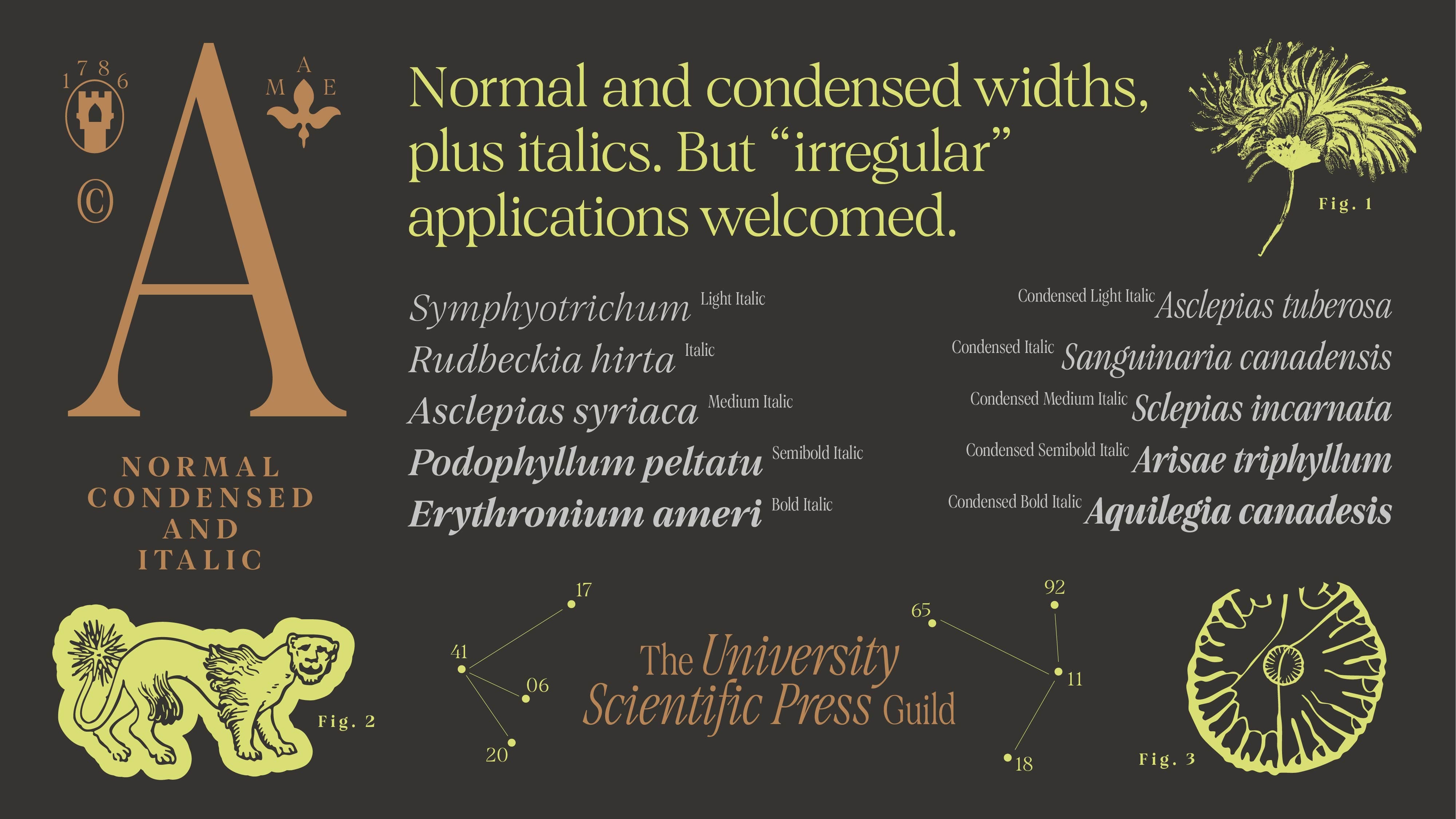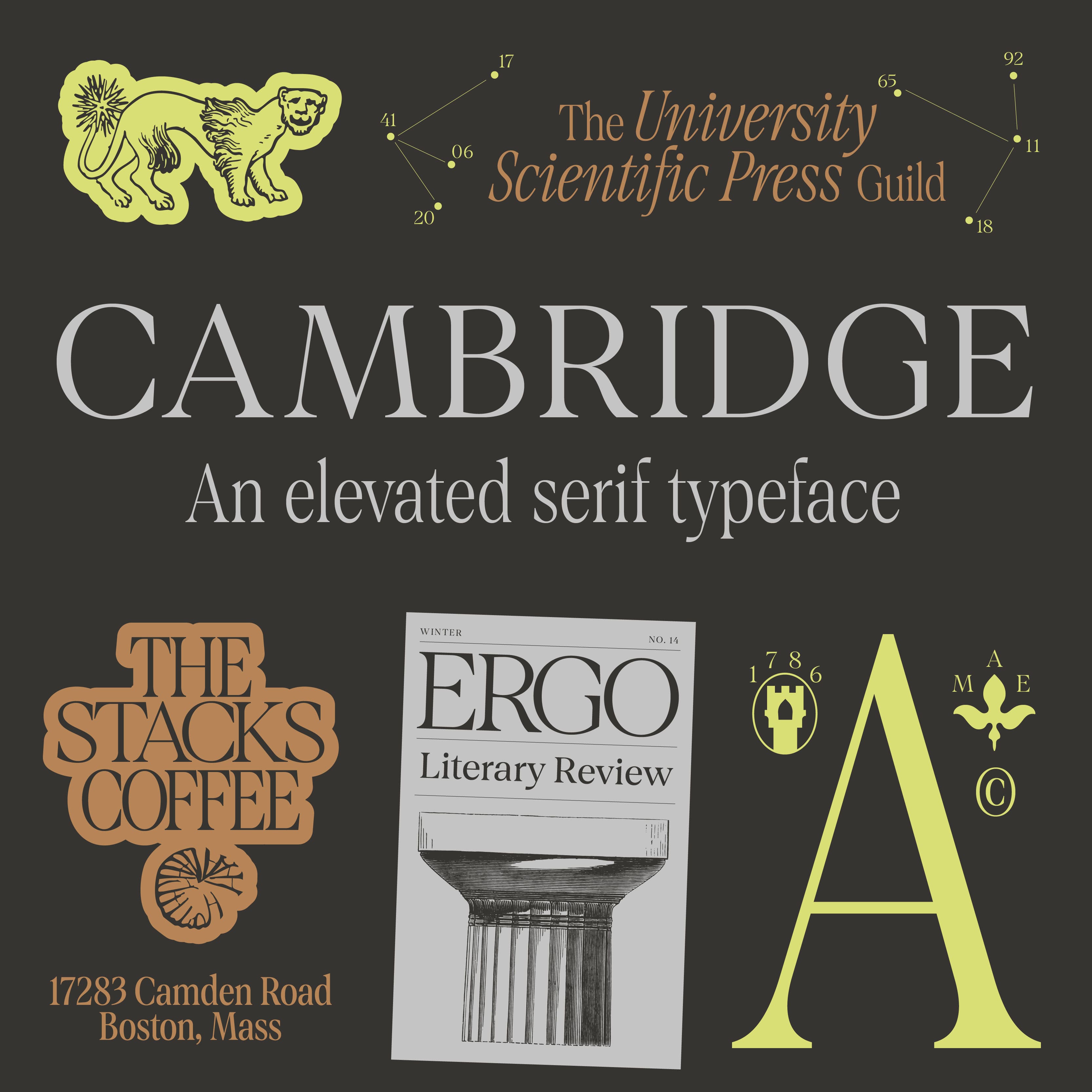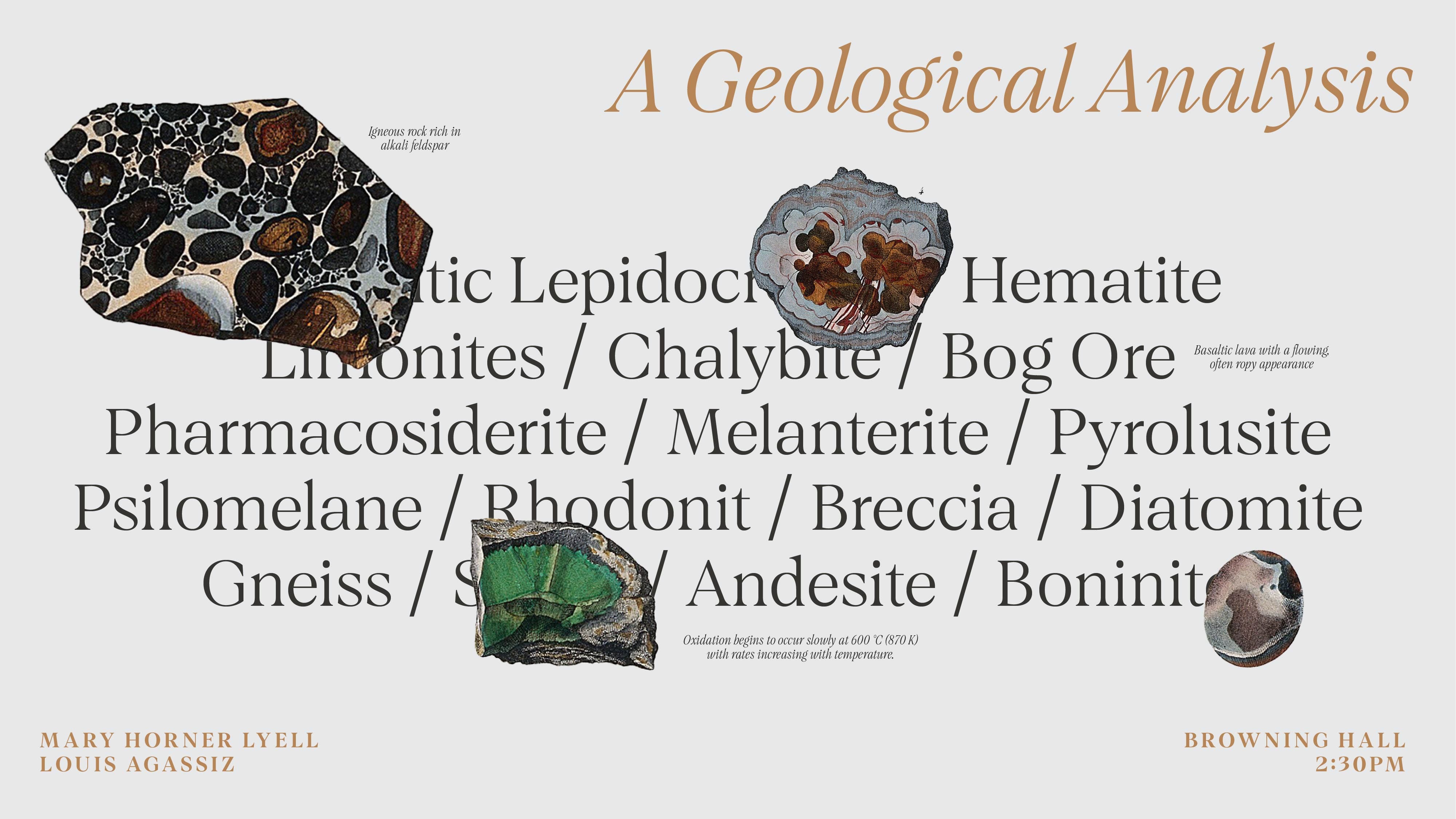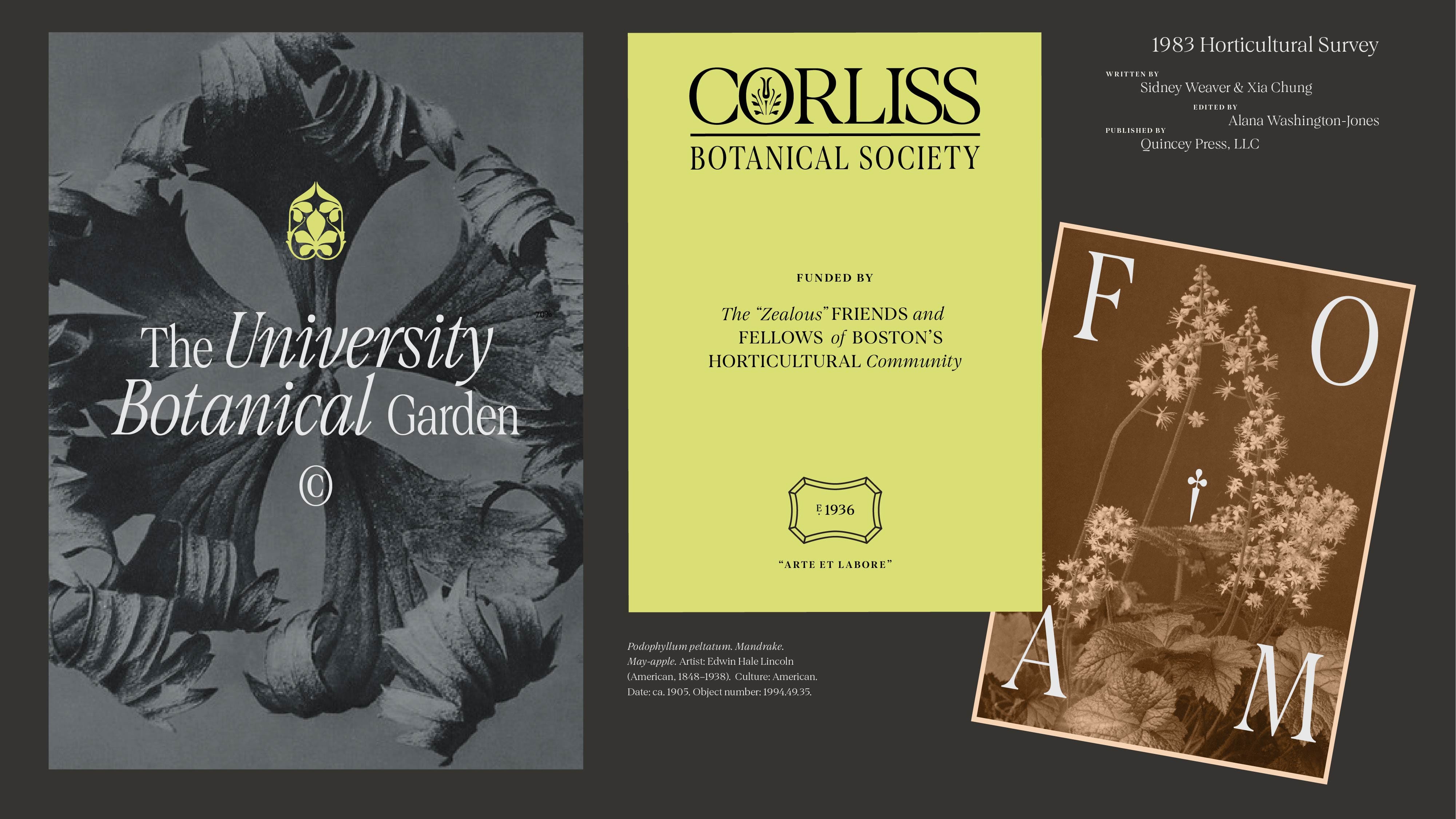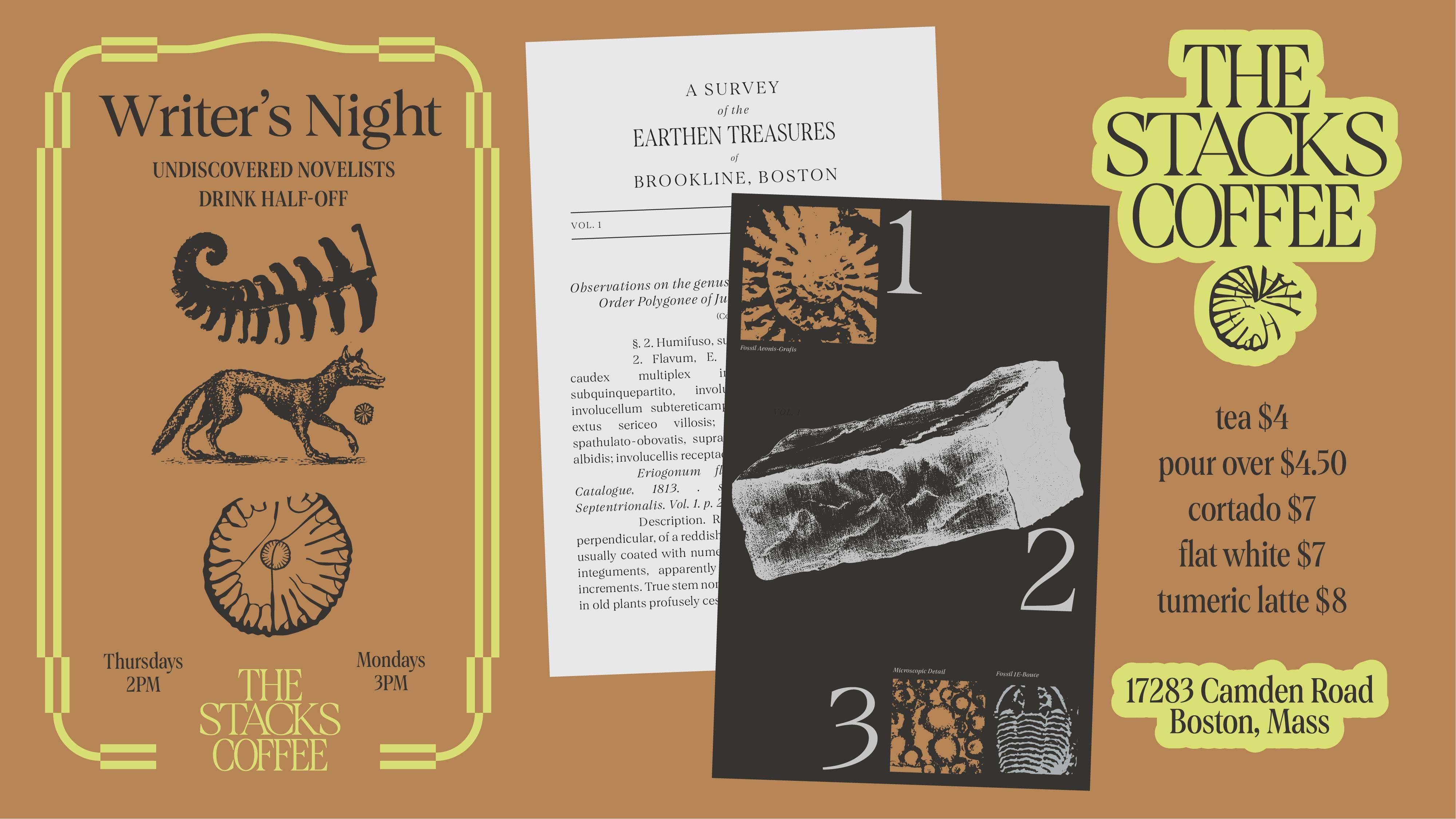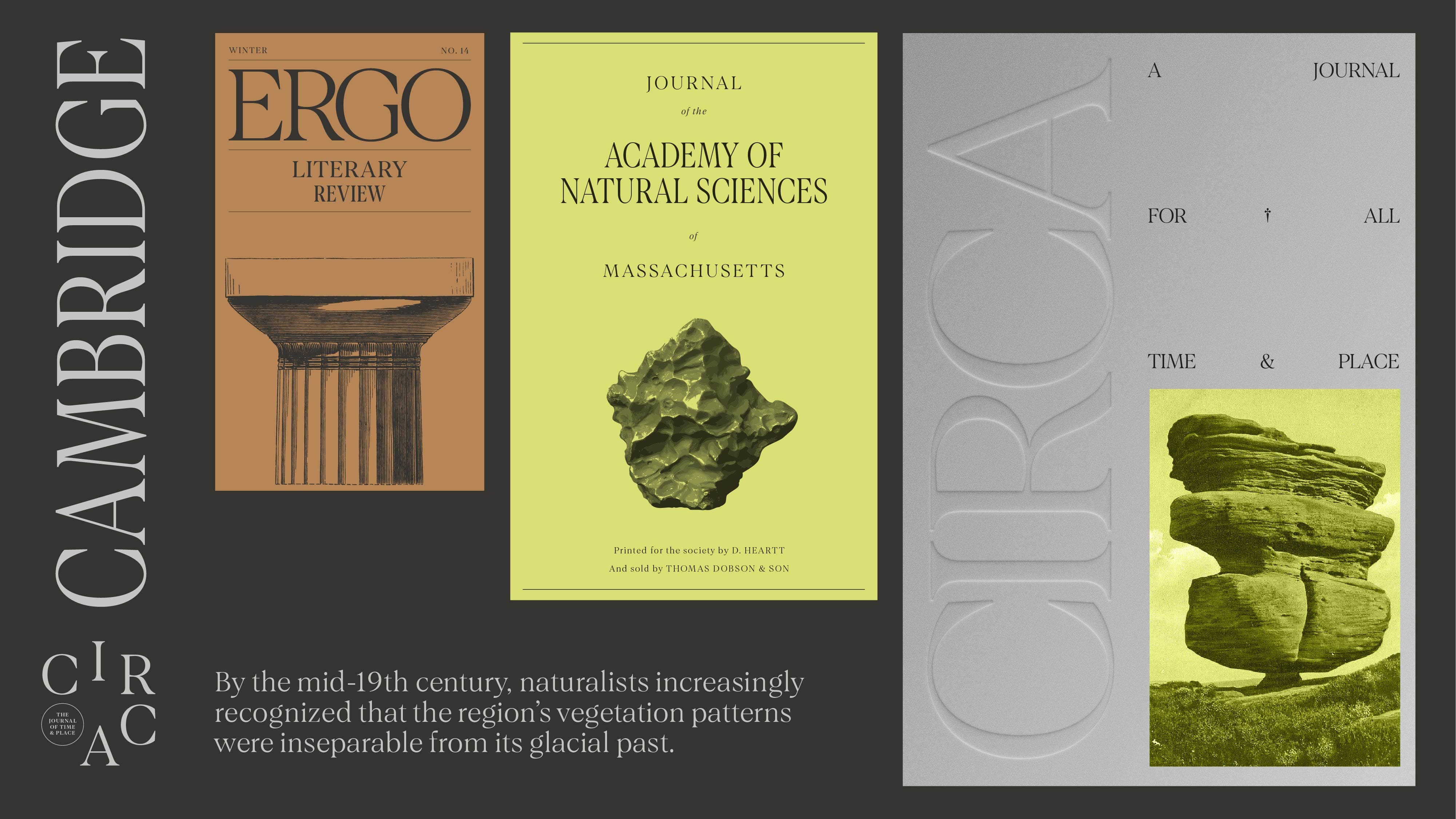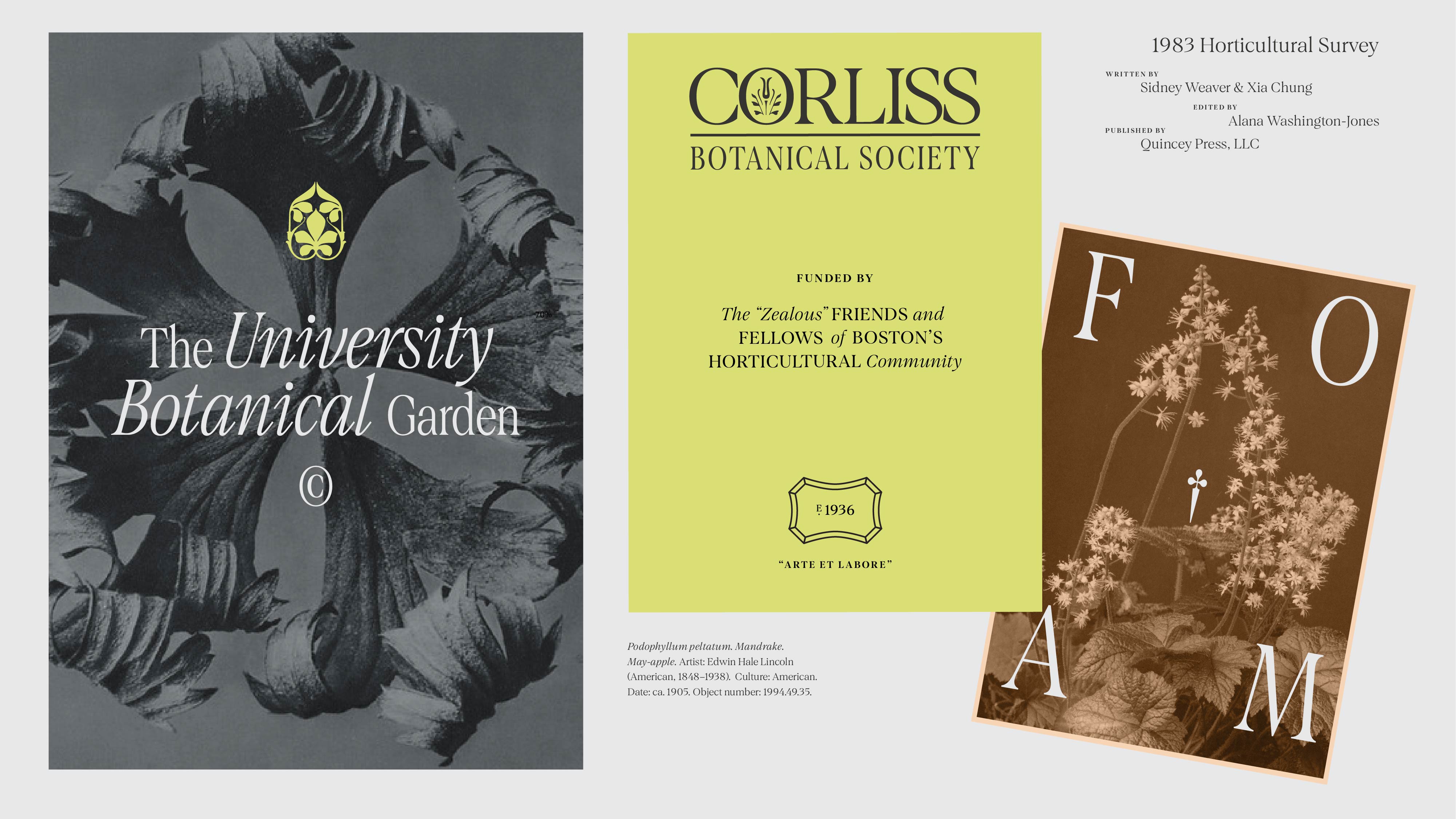
Cambridge
The idea for this typeface was born after a lobster-roll filled (and butter dipped) trip to Boston and Cambridge, Massachusetts. Have you been there? Even if virtually through Fallout 4? It’s incredible. It’s this convergence of history, mouthy Pats fans, and insane roads where “lanes” mean nothing and often disappear.
Cambridge is an elevated, timeless serif typeface inspired by the history and academic vibes around Boston and Cambridge, Massachusetts. From the old engraved headstones of the cemeteries, to the bronze de-bossed plaques marking historical places and legacy institutions. The typeface features both a normal and condensed width, both with italics. This typeface is great for projects where you need to put on airs and make a confident yet controlled statement. This typeface family thinks it’s smart (sorry “smahht”). Did it mention it graduated magna cum laude from Harvard? Oh it did? Of course it did.